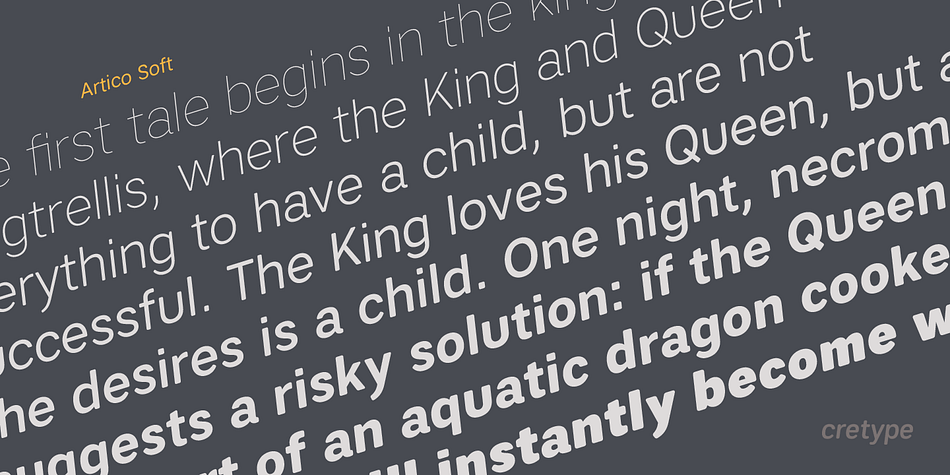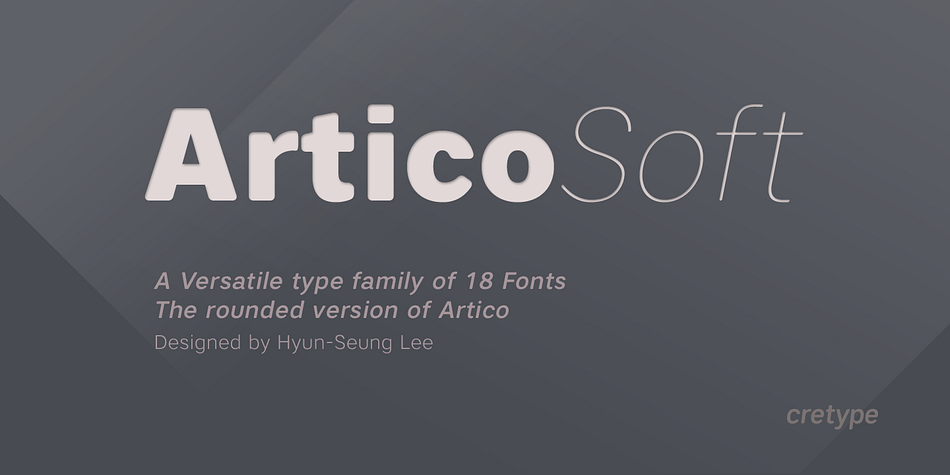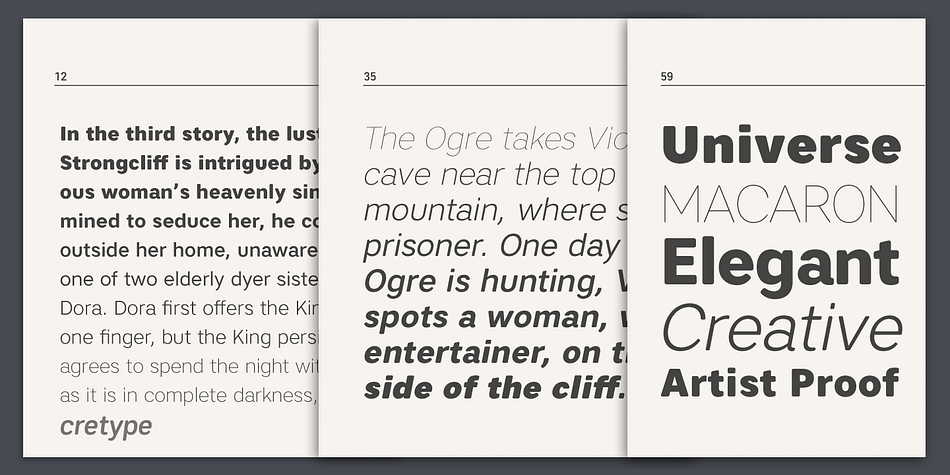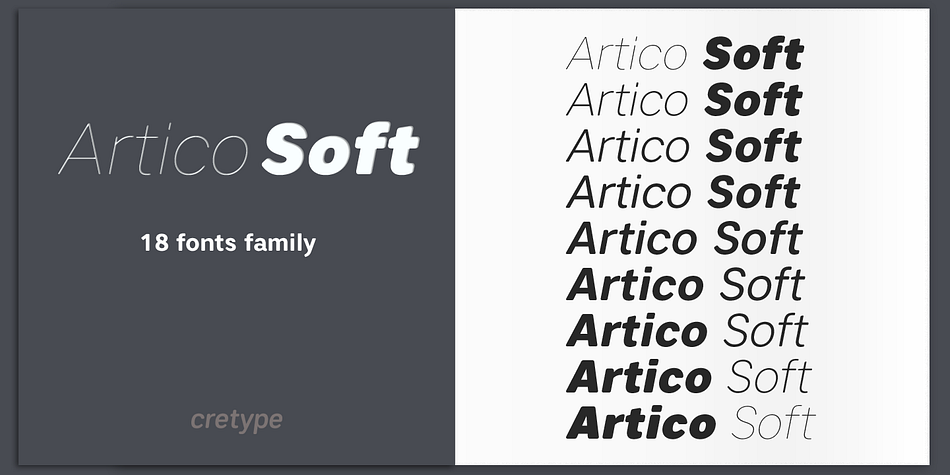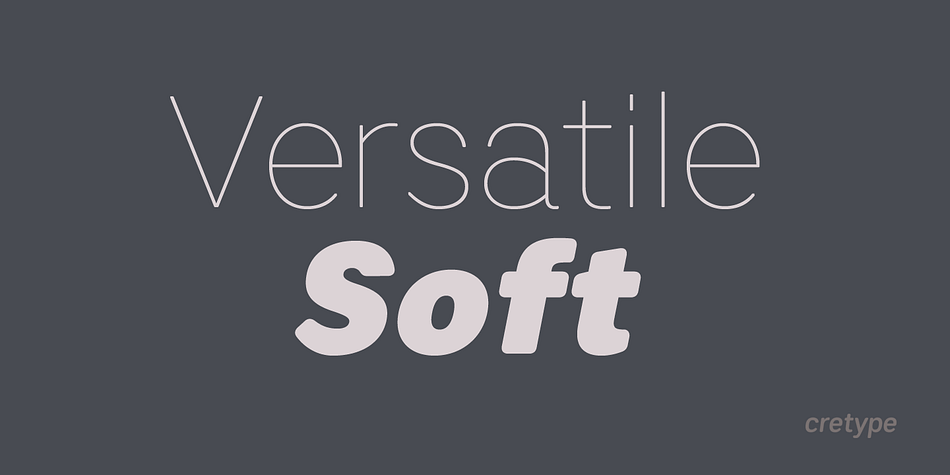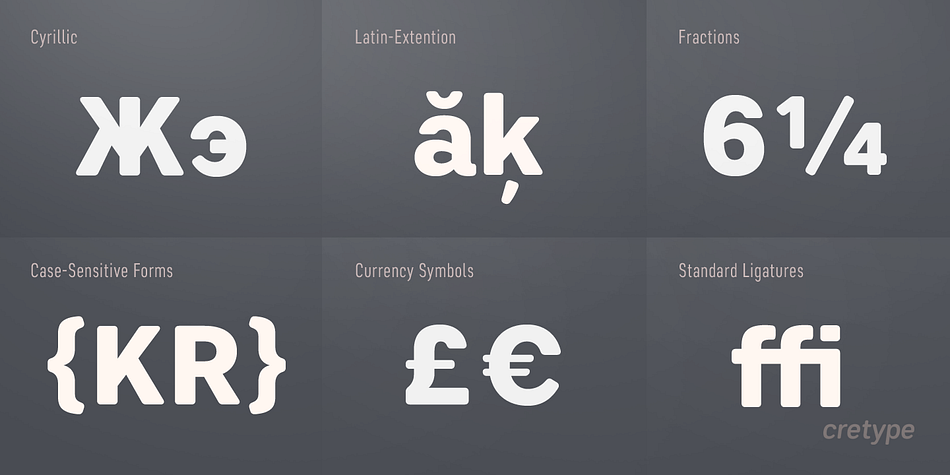
Designed by Hyun-Seung Lee, Artico Soft is a sans serif font family. This typeface has eighteen styles and was published by cretype.
Artico Soft is the rounded version of Artico. Artico Soft Family is a modern sans-serif typeface that is clean, simple and highly readable. Letters in this type family are designed with genuine neo-grotesque and neutral shapes without any decorative distractions. The spaces between individual letter forms are precisely adjusted to create the perfect typesetting.
Artico Soft is versatile type family of 18 fonts. Artico family consists of 9 weights (Thin, ExtraLight, Light, Regular, Medium, Bold, ExtraBold, Heavy & Black) with their corresponding italics.
The Open Type fonts contain complete Latin 1252, Cyrillic, Central European 1250, Turkish 1254 character sets. Each font includes proportional figures, tabular figures, numerators, denominators, superscript, scientific inferiors, subscript, fractions and case features.
We highly recommend it for use in books, web pages, screen displays, and so on.